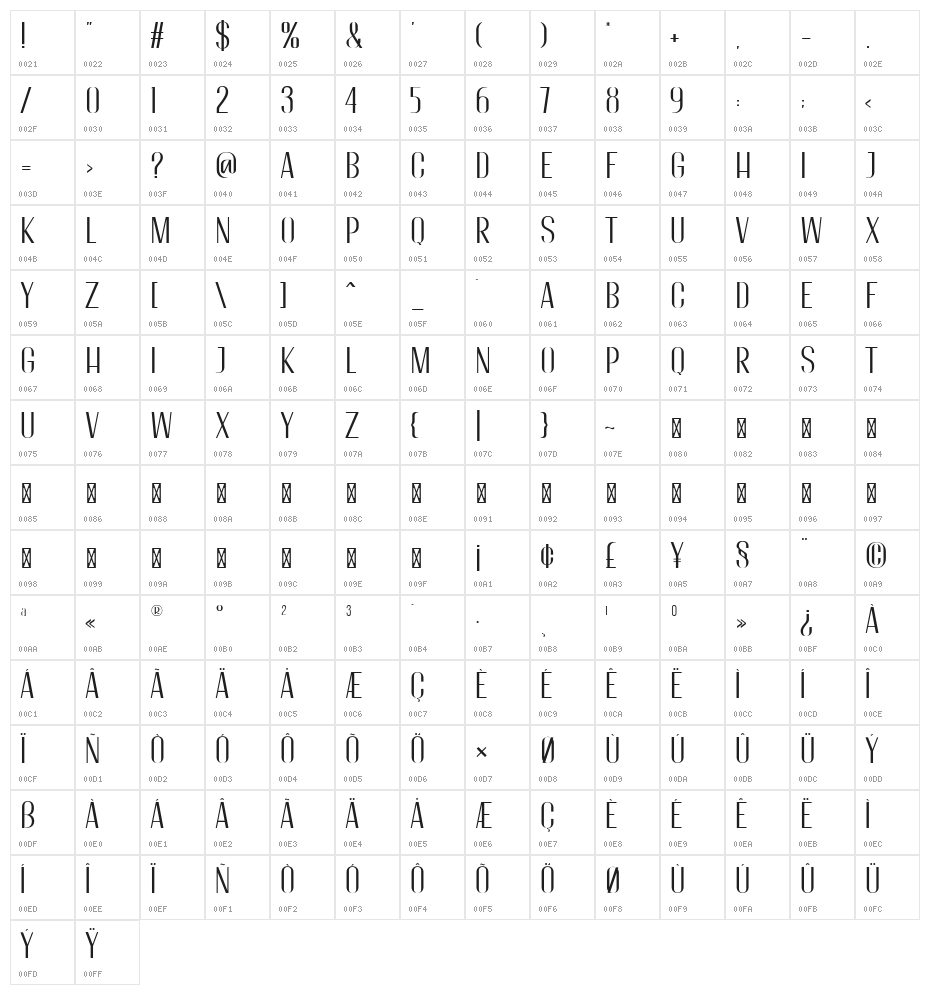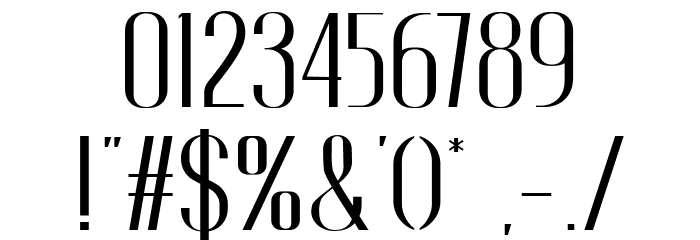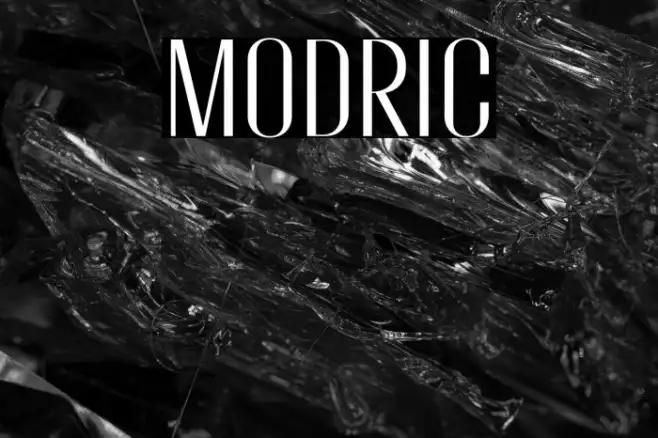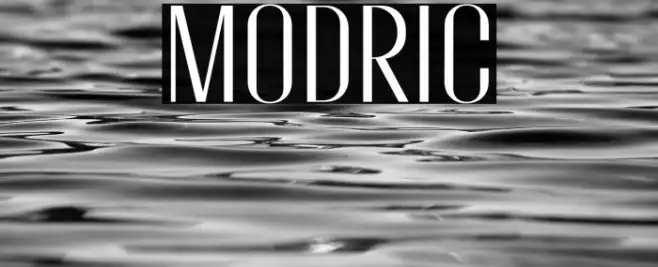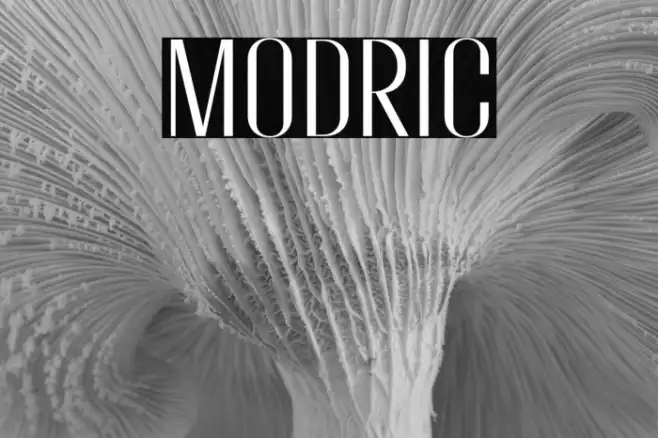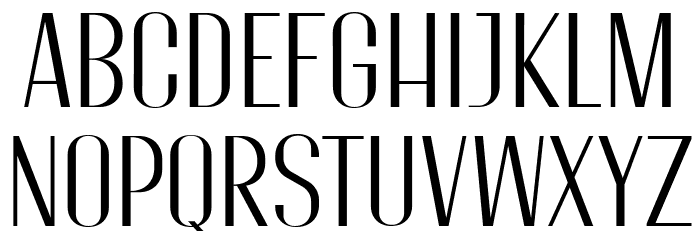
Modric Font
Modric Description
This font features a modern and sleek design with tall, narrow characters that convey a sense of elegance and sophistication. The uppercase letters are particularly striking, with their elongated forms and sharp edges. The lowercase letters maintain a consistent style, complementing the uppercase with their clean lines and minimalistic appearance. The numerals are well-proportioned, ensuring readability while maintaining the overall aesthetic. Special characters are included, adding versatility to the font's use. The thin strokes and high contrast between thick and thin lines give it a refined and contemporary look, making it suitable for a variety of design applications.
| Proposed Projects | Ideal for fashion magazines, luxury branding, editorial design, and high-end product packaging. |